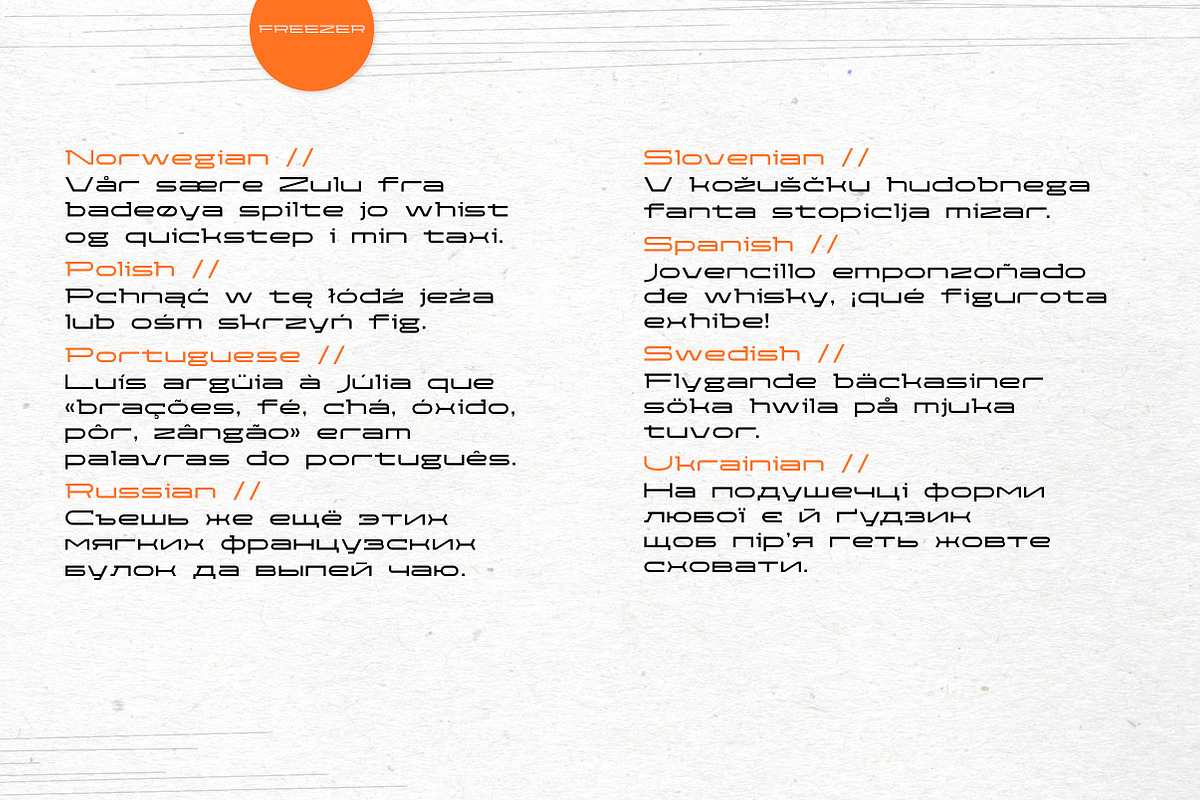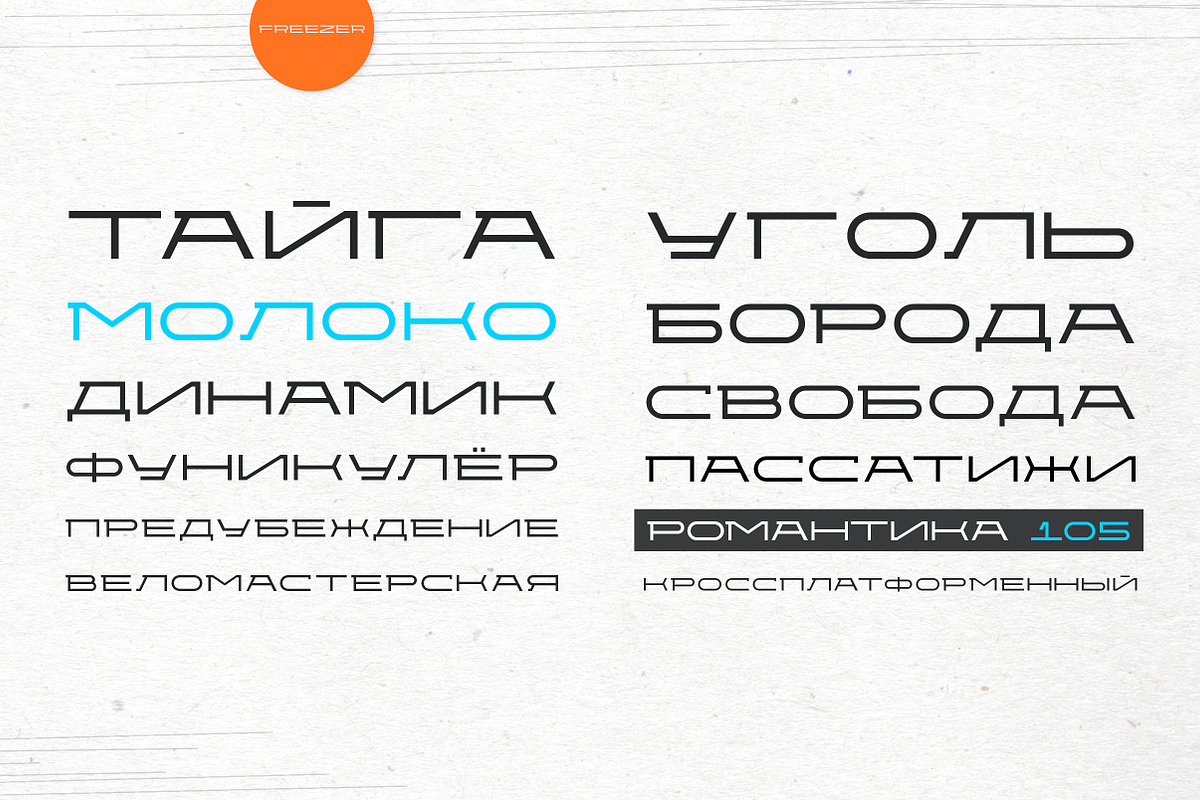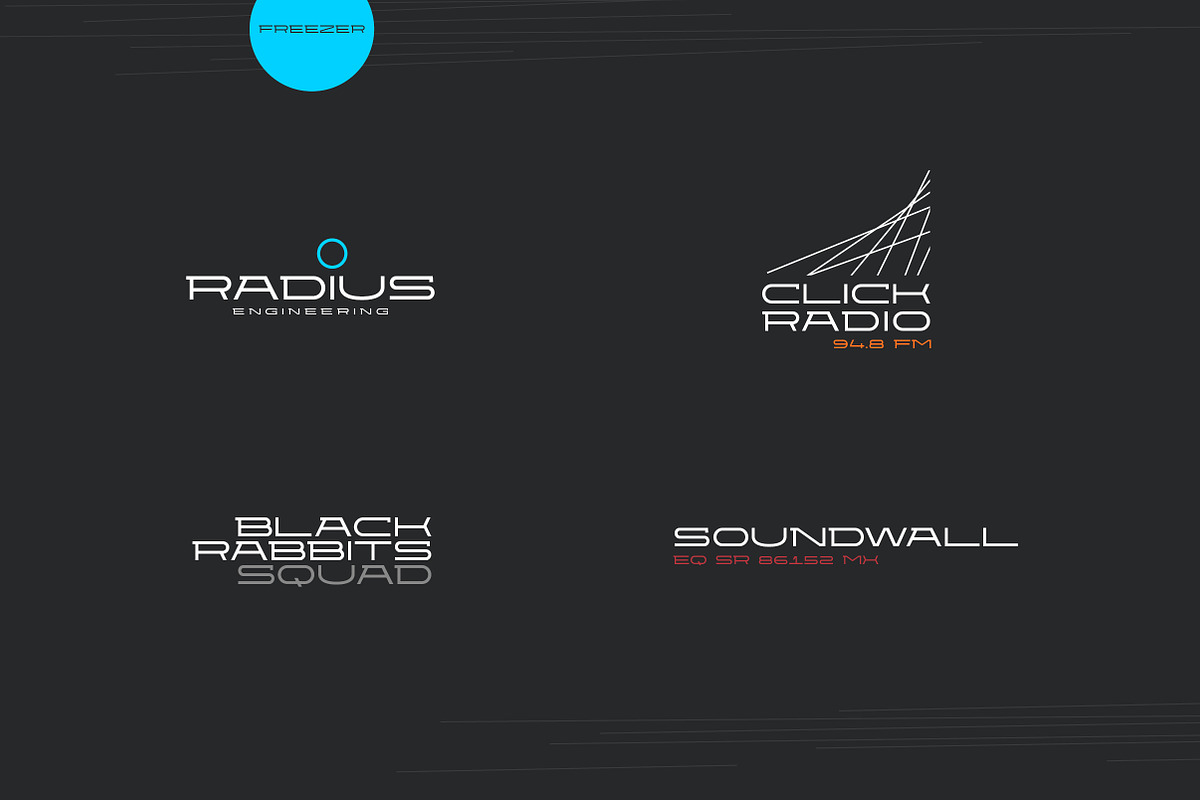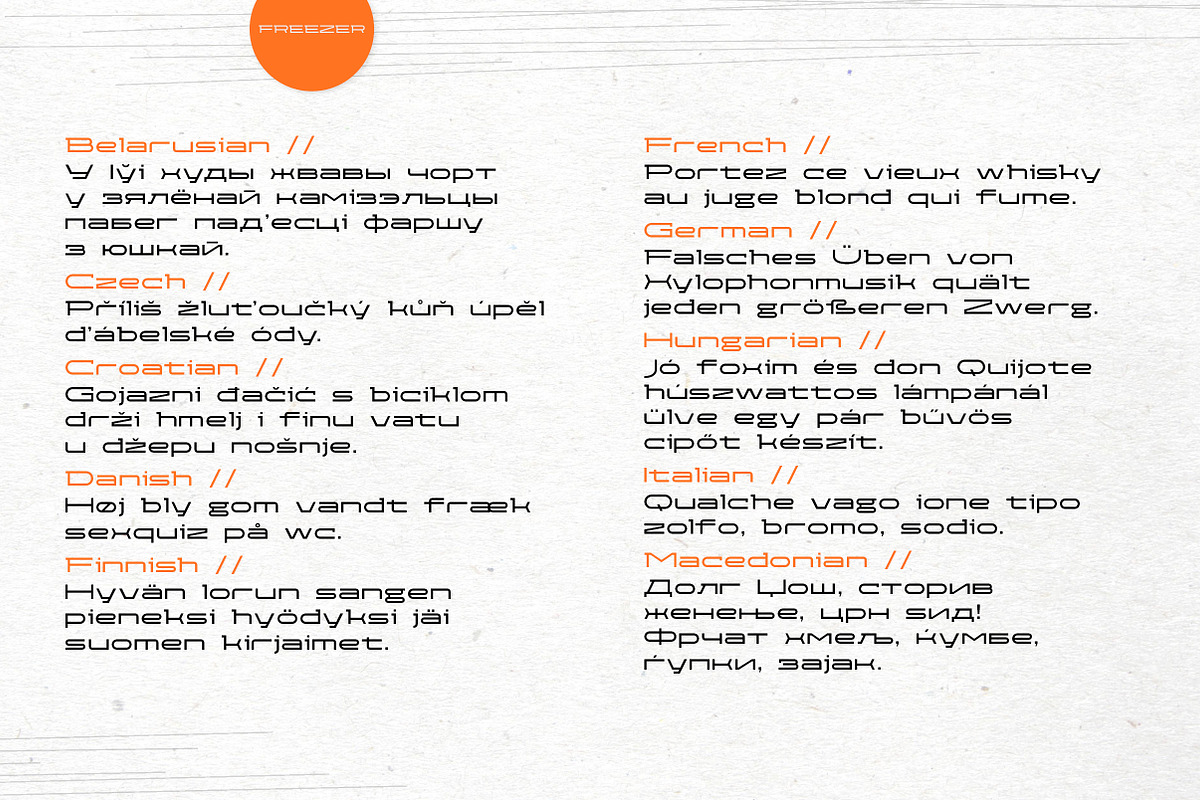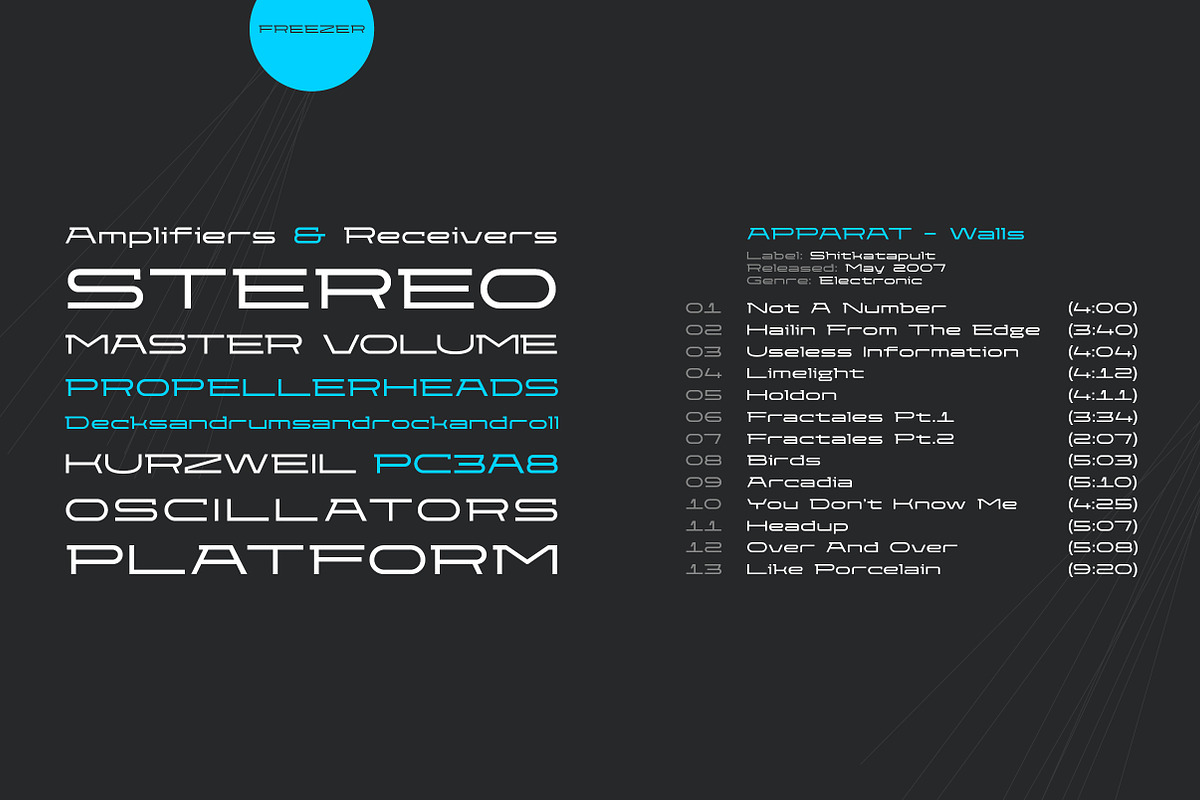
Freezer
Freezer is a modern typeface with wide proportions. The font opens in a large size, so it especially works well in headlines for posters, key visuals, corporate identity and package design. OpenType font file. Codepages support: windows-1250 ANSI Latin 2: Central European windows-1251 ANSI Cyrillic windows-1252 ANSI Latin 1: Western European